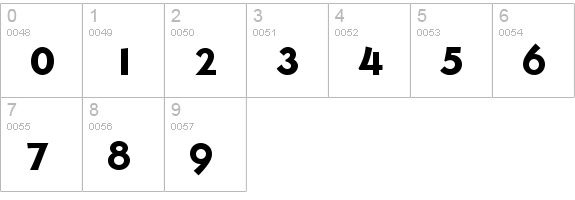
Bernhard Gothic Heavy Font Details
Bernhard Gothic Heavy is a heavy, high-impact variant in the Bernhard typeface family \xE2\x80\x94 well suited to high-impact headlines, posters, and display advertising.
Bernhard Gothic Heavy is a bold and impactful typeface that exudes strength and power. With its thick strokes and sturdy appearance, this font is perfect for making a statement in headlines, logos, and branding materials. Its sharp angles and modern aesthetic give it a contemporary feel that commands attention. What makes Bernhard Gothic Heavy even more appealing is that it is available for free download at FontsMarket.com. This means that you can easily access this striking typeface and use it in your projects without any cost. Whether you're designing posters, banners, or website headers, Bernhard Gothic Heavy will make a bold statement and elevate your design to the next level. Download it now and unleash the power of this impressive font in your creations.